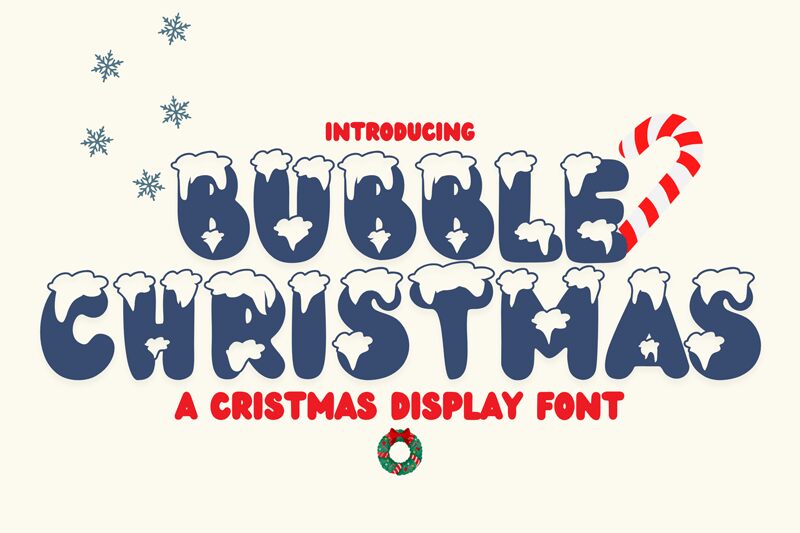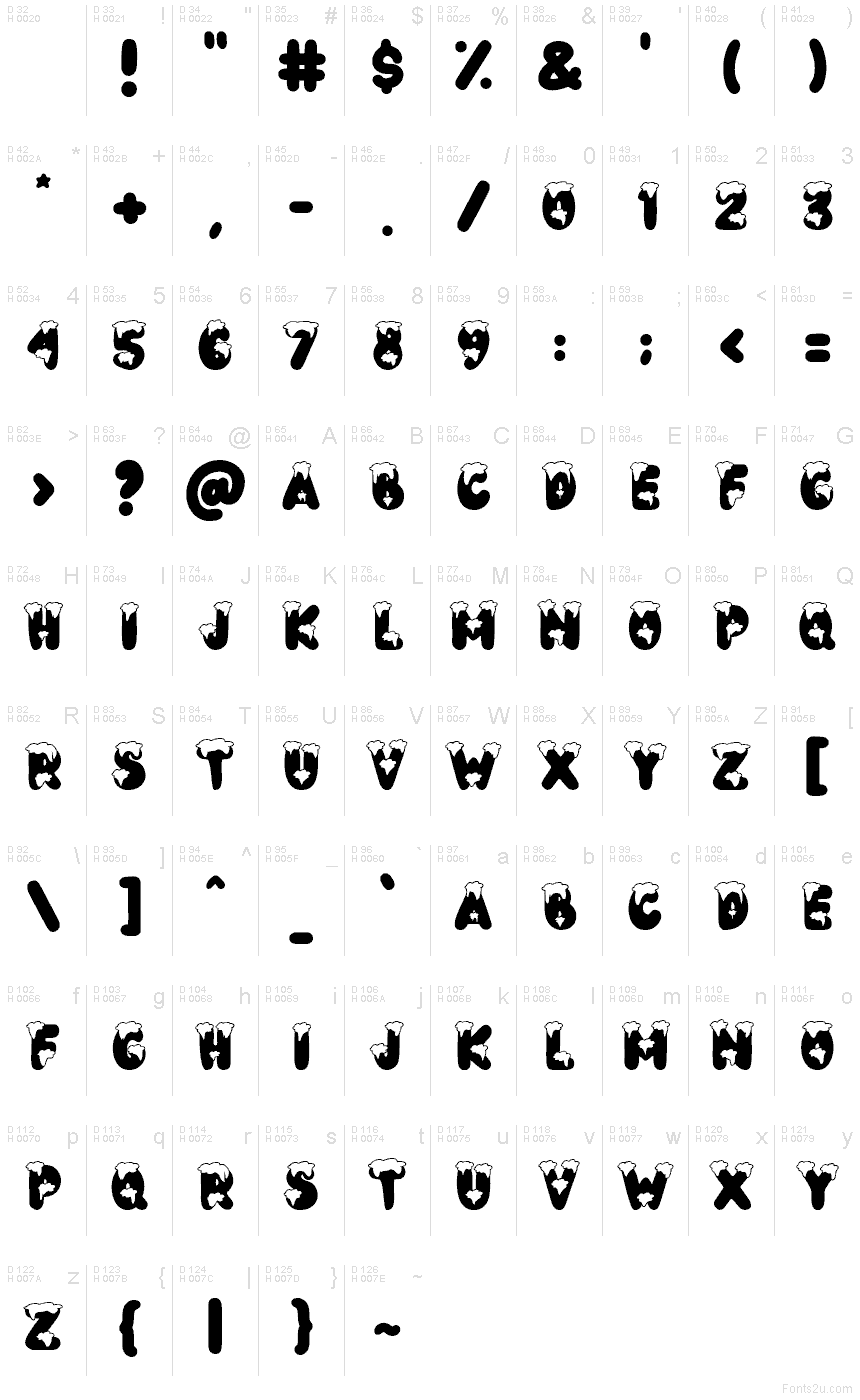
Bubble Christmas
Bubble Christmas font by DM Letter Studio - Dimas Prasetyo is a free Christmas holiday typeface that looks like it’s been piped in frosting and topped with fresh snow. Each letter is chunky, rounded, and coated with drippy, white “icing,” giving your titles a soft, squishy feel that’s full of cozy winter charm. The bold, all-caps rhythm makes words feel like they’re popping off the page, instantly signaling festive fun without needing extra graphics.
Using Bubble Christmas font, you can brighten gift tags, greeting cards, kids’ party invitations, YouTube thumbnails, seasonal posters, and playful product packaging. This free font shines at large sizes where the snowy details and bubbly shapes can really breathe. For longer text or small print, pair it with a clean sans serif so Bubble Christmas handles the headlines while the supporting copy stays clear and easy to read.